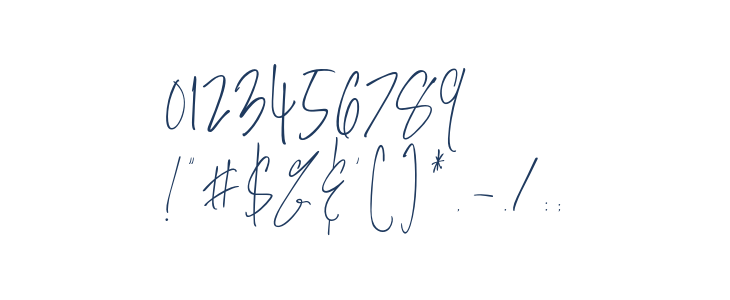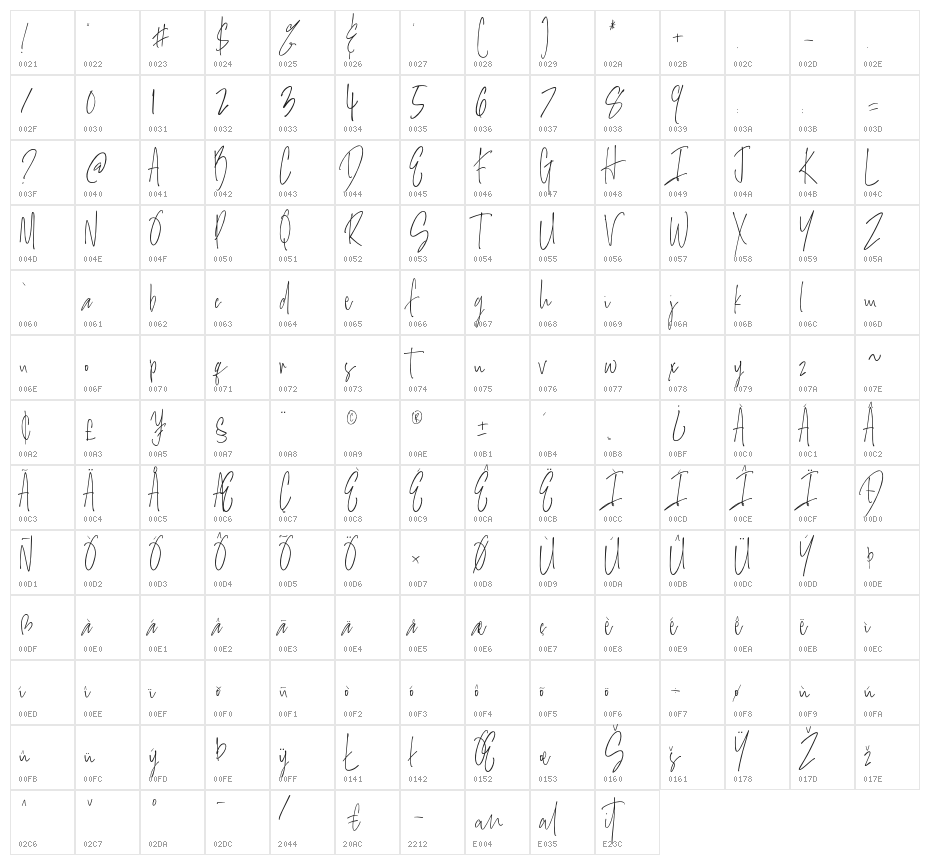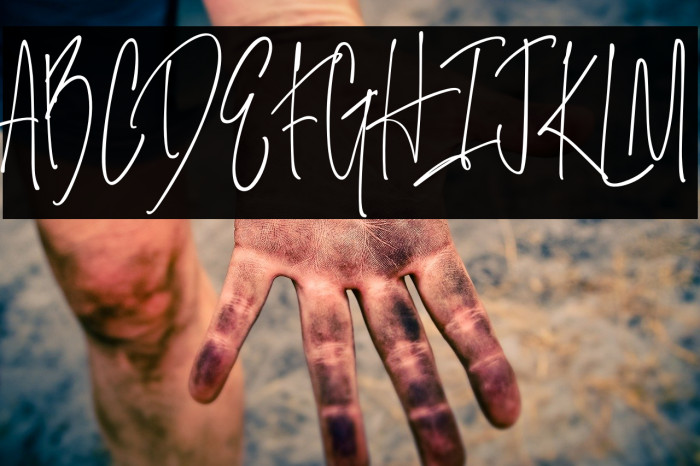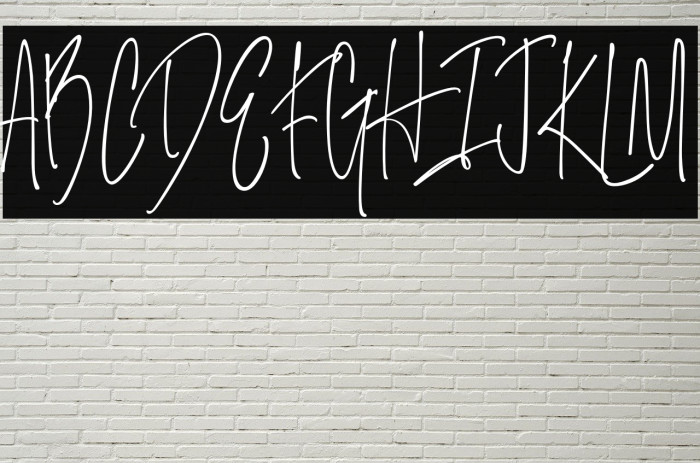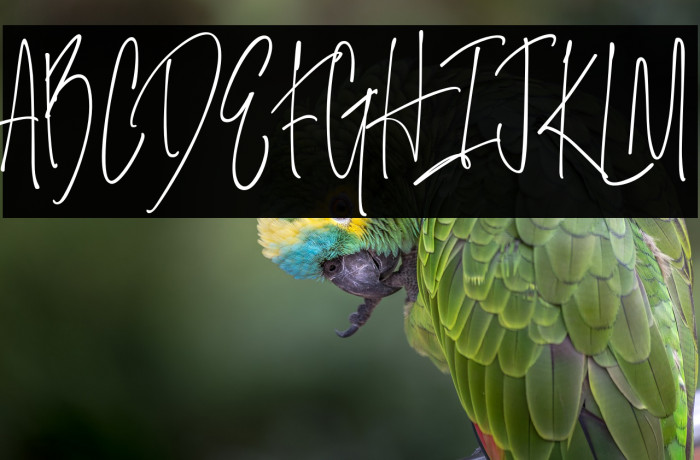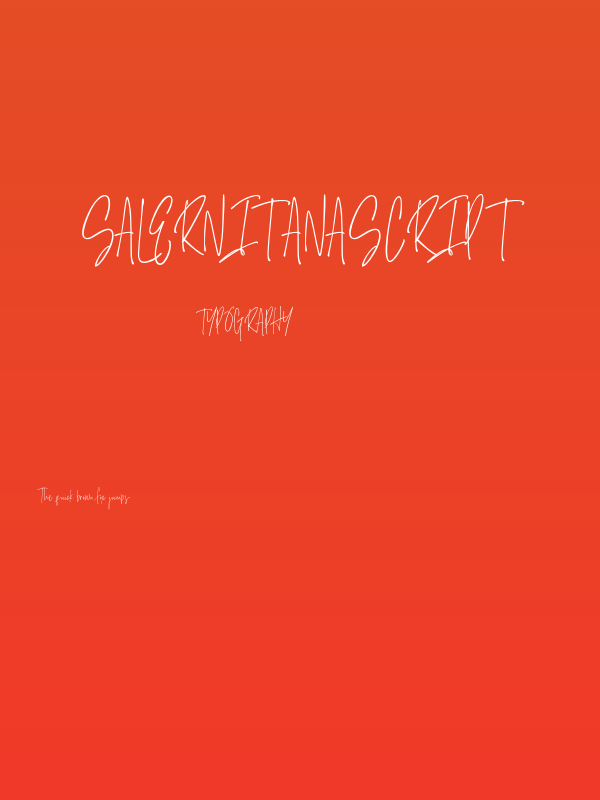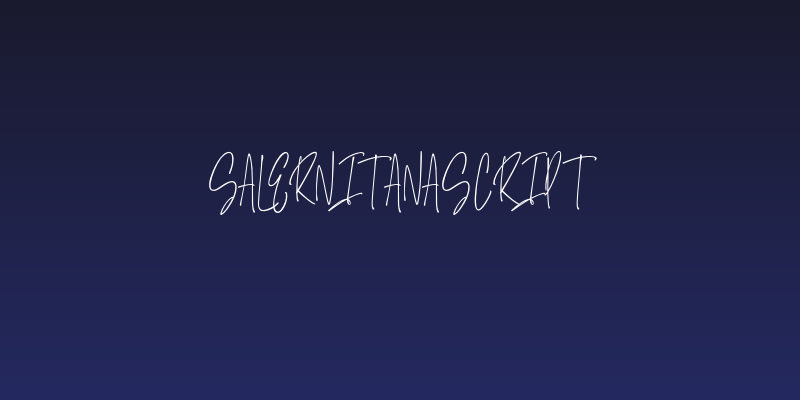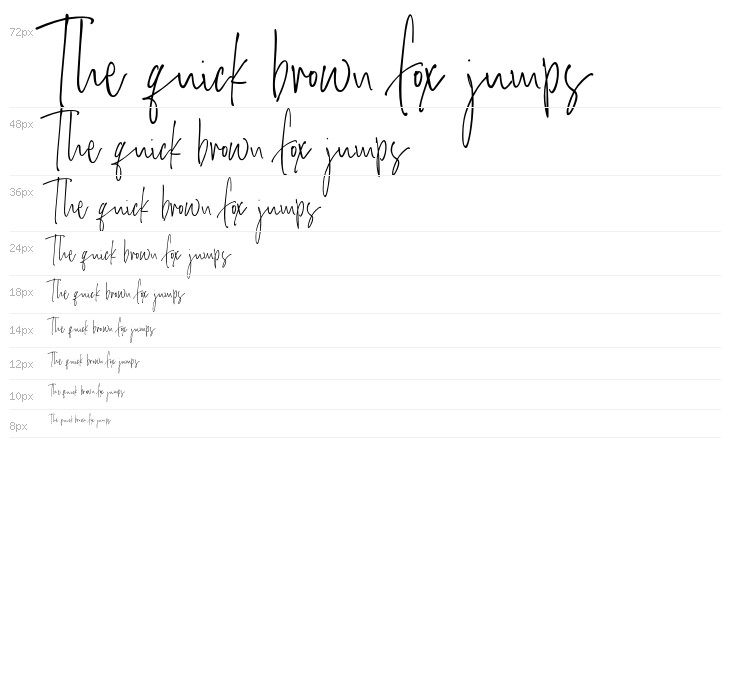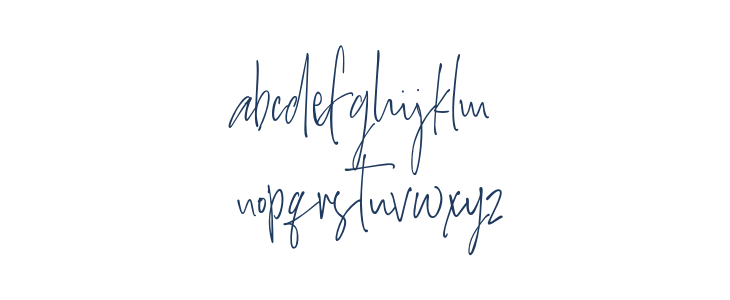
SalernitanaScript Font
SalernitanaScript Description
This font exudes a casual, handwritten style with a touch of elegance. The letters are elongated and slightly slanted, giving them a dynamic and fluid appearance. The strokes are thin and consistent, with a slight variation that adds to the handwritten feel. The uppercase letters are tall and narrow, while the lowercase letters maintain a more relaxed and flowing form. Numbers and special characters follow the same style, ensuring a cohesive look across all characters. The overall design is both artistic and legible, making it suitable for creative projects that require a personal touch.